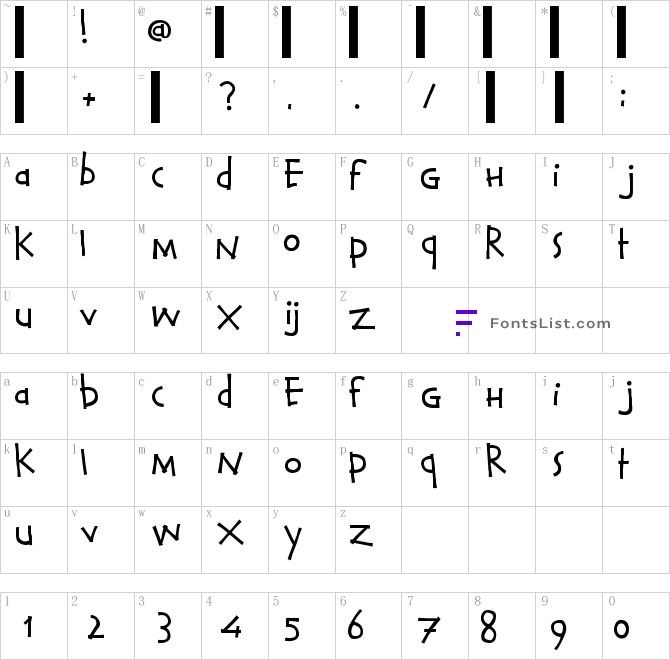
- Font Name:Calvin and Hobbes
Calvin-and-Hobbes-Normal.ttf is a very beautiful artistic font, Calvin-and-Hobbes-Normal.ttf is widely used in the design and printing of various books and pictures,Calvin-and-Hobbes-Normal.ttf has a strong visual impact,Calvin-and-Hobbes-Normal.ttf is a commonly used font in newspapers, magazines and books, and is used in posters, e-commerce Poster design, store design, logo design, font design and other fields.Calvin-and-Hobbes-Normal.